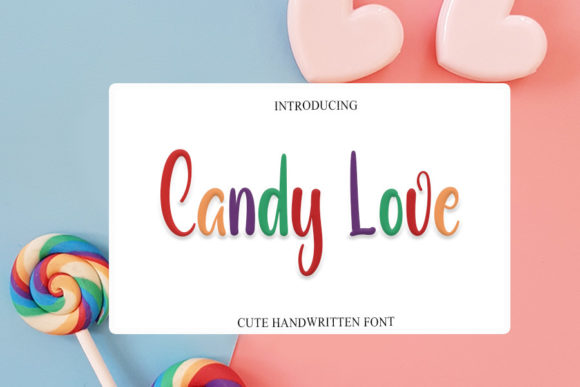
Falling in Love with Candy Love Font: A Designer’s Dream Come True
I’ll never forget the moment I stumbled upon the perfect font for a project that had been lingering in my design queue for weeks. I was working on a whimsical branding campaign for a new bakery, and I just couldn’t find the right fit. That was until I discovered Candy Love Font. It was love at first sight! 💕 In this article, I’ll share my experience with this beautiful casual handwritten font, its features, and how to make the most of it in your designs.
A Personal Review of Candy Love Font
Candy Love Font has quickly become one of my go-to fonts for a variety of projects. Here’s what I love about it:
• ✨ Classy calligraphic influences: Candy Love Font has a sophisticated feel to it, making it perfect for projects that require a touch of elegance.
• ✅ Contemporary and fresh: Despite its classic influences, the font feels modern and trendy, ensuring your designs won’t look outdated.
• 💫 Highly legible: The font is easy to read, even at smaller sizes, making it ideal for body text and headings.
While Candy Love Font is amazing, it’s not without its quirks:
• 🤔 Limited use in very formal projects: While the font is classy, it may not be suitable for very formal or corporate projects that require a more traditional look.
• ⚠️ Some letters may require manual kerning: As with any font, you may need to adjust the kerning between certain letters to achieve optimal results.
Candy Love Font comes with a range of OpenType features, including:
• Stylistic alternates: Switch between different letterforms to add variety to your text.
• Glyphs: Access additional characters, such as ligatures and ornaments, to enhance your designs.
The Story Behind Candy Love Font
Candy Love Font was designed with the intention of creating a font that feels both classic and contemporary. The designer aimed to craft a font that would be a true favorite among designers, with a unique blend of elegance and playfulness.
What type of projects is Candy Love Font best suited for? Candy Love Font is versatile and can be used for a variety of projects, including branding, packaging, and digital designs. It’s perfect for projects that require a touch of elegance and playfulness.
Is Candy Love Font suitable for body text? Yes, Candy Love Font is highly legible and can be used for body text. However, it’s recommended to use it for headings and titles for maximum impact.